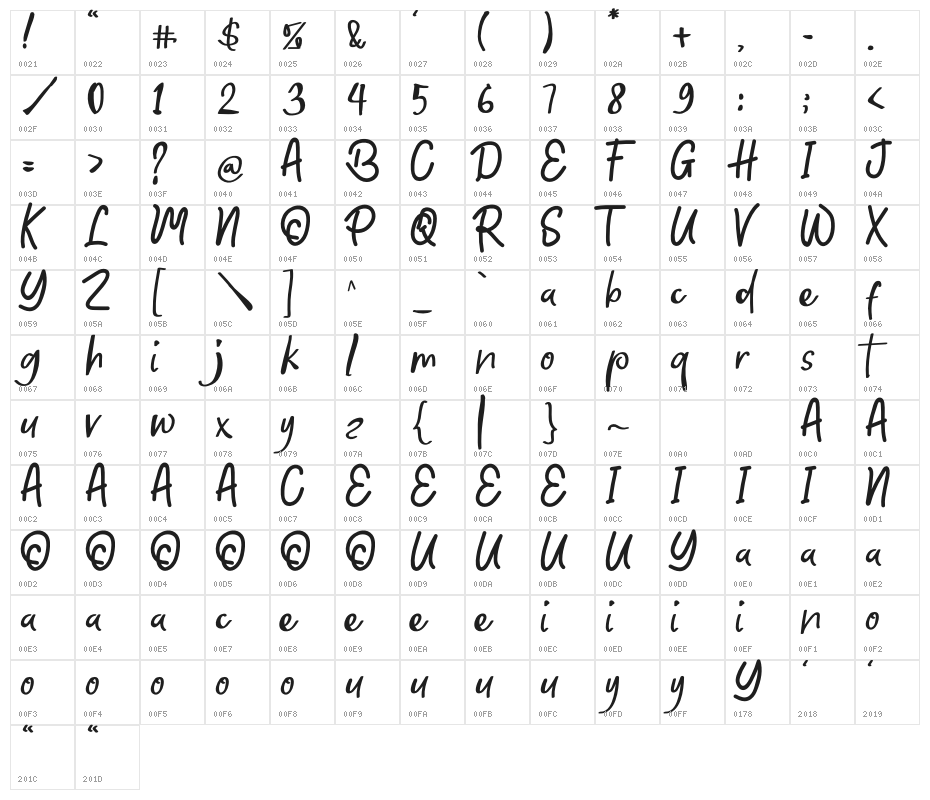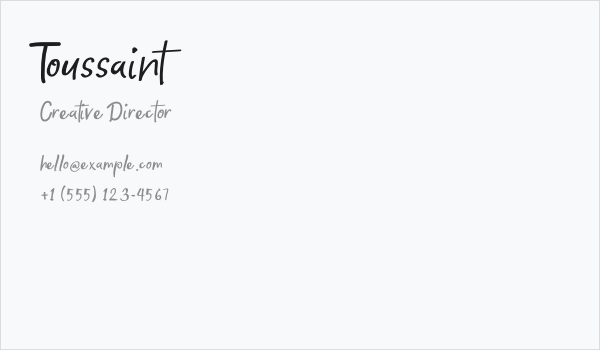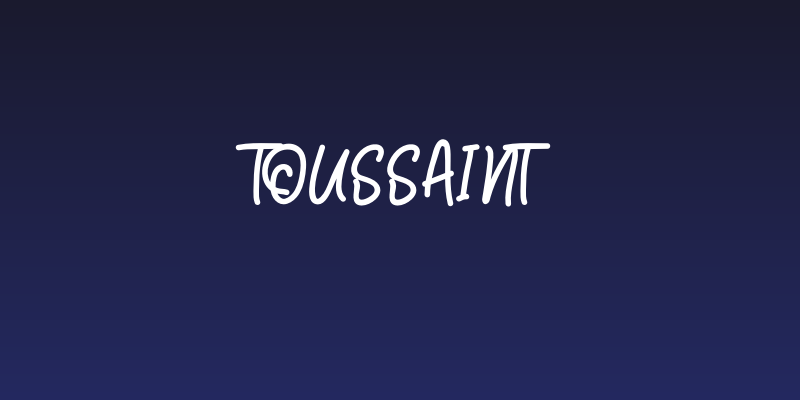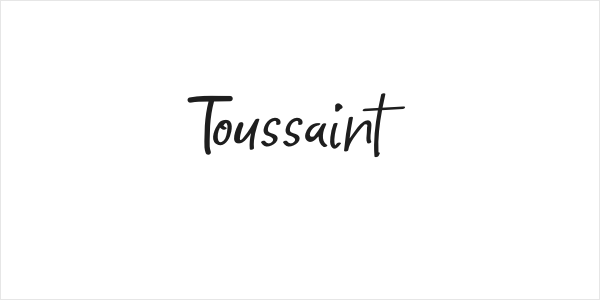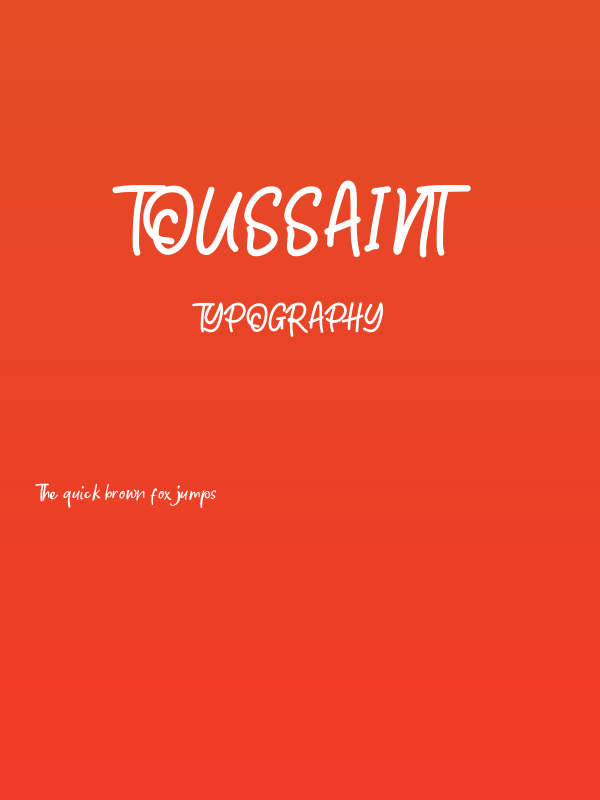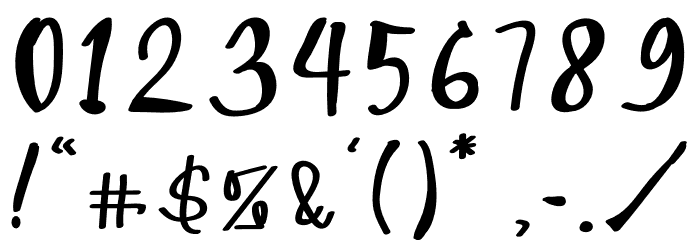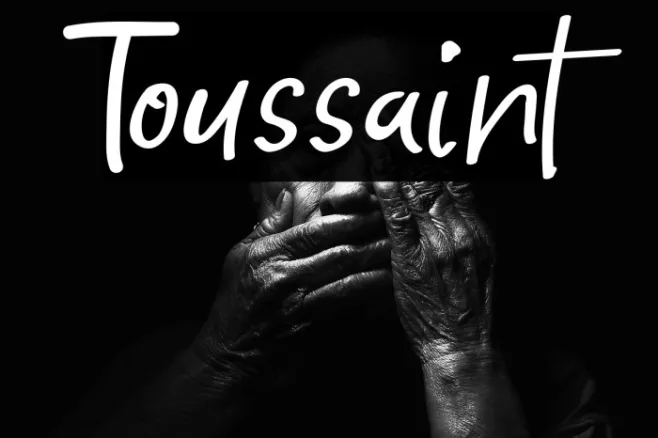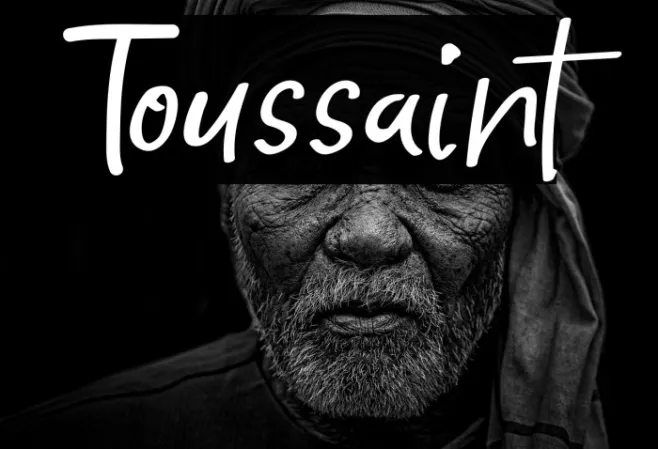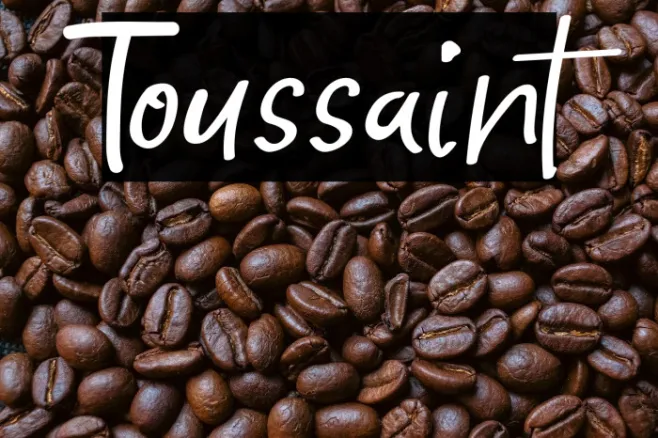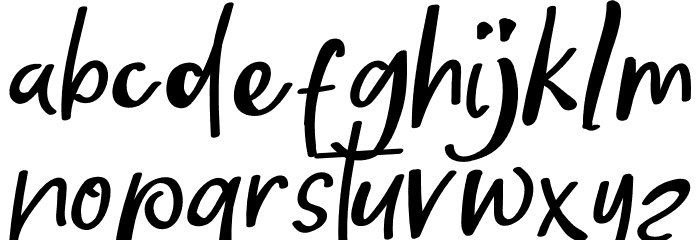
Toussaint Font
Toussaint Description
This font features a lively and dynamic handwritten style, characterized by its fluid and expressive strokes. The letters are slightly slanted, giving it an informal and casual appearance. Each character is uniquely crafted, with varying stroke widths that add a sense of movement and energy. The uppercase letters are bold and prominent, while the lowercase letters maintain a consistent flow, enhancing readability. The numerals and special characters are designed to complement the overall style, making it versatile for various uses.
| Use Case | Logos, Invitations, Social media graphics |
| Proposed Projects | Ideal for personal branding, creative projects, invitations, greeting cards, and social media graphics. |